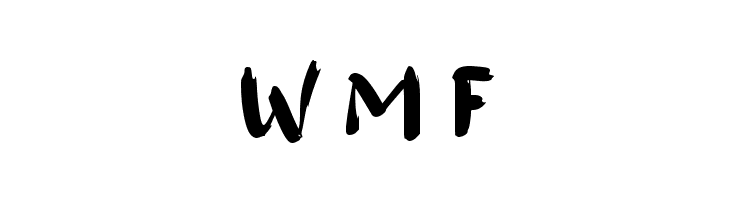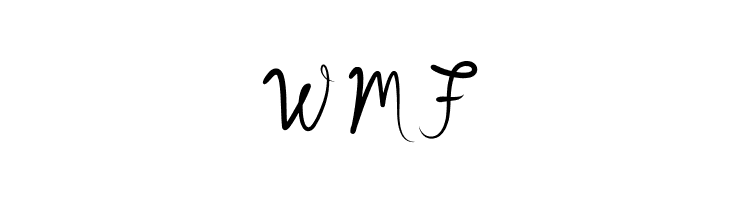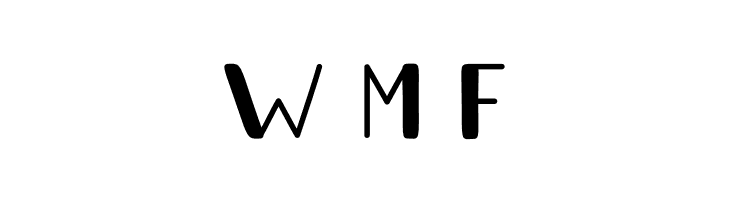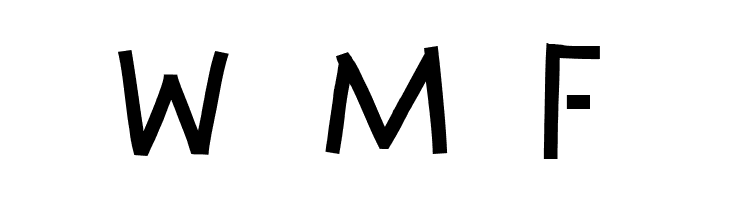
A bold, Gothic-inspired font with a distressed, hand-crafted appearance.
A bold, geometric font with a modern and structured design.
A bold, italic font with a dynamic and modern style.
A bold, dynamic font with slanted characters and thick strokes.
A playful, hand-drawn font with bold, rounded strokes and a casual feel.
Abstract geometric display font with patterned circles and outlined squares.
Abstract, hand-drawn geometric display font with spherical motifs.
Hand-drawn dingbat font with tea and kitchen-themed illustrations.
A bold, futuristic font with sharp angles and geometric shapes.
A distressed, grunge-style font with a textured, urban appearance.